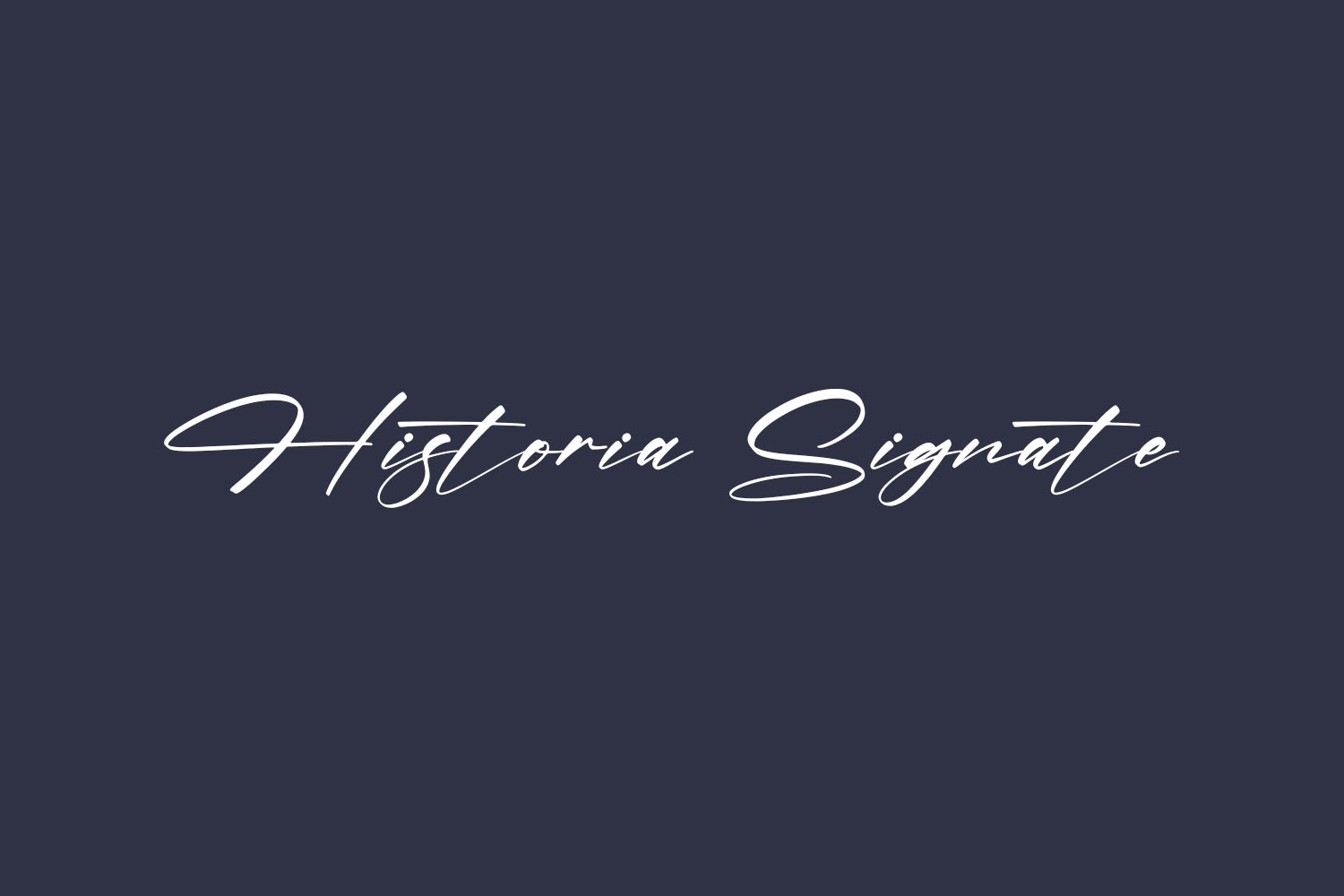
Discover the elegance of Historia Signate Free Font, a refined script font with a graceful flow that seamlessly adapts to any design. Incorporate it into your projects with confidence, and witness the delightful outcome. Historia Signate Free Font is free for personal use only. Please purchase the full version for commercial use.